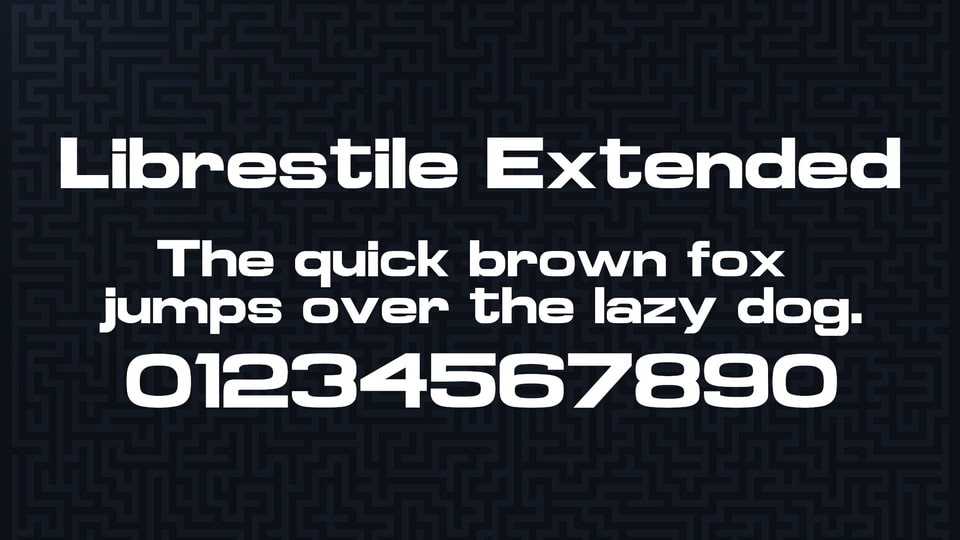
Download Librestile font, a libre equivalent for fonts like Microgramma, Eurostile or Green Mountain 3. Inspired by Michroma, and aspiring to be a Extended Bold version of it.